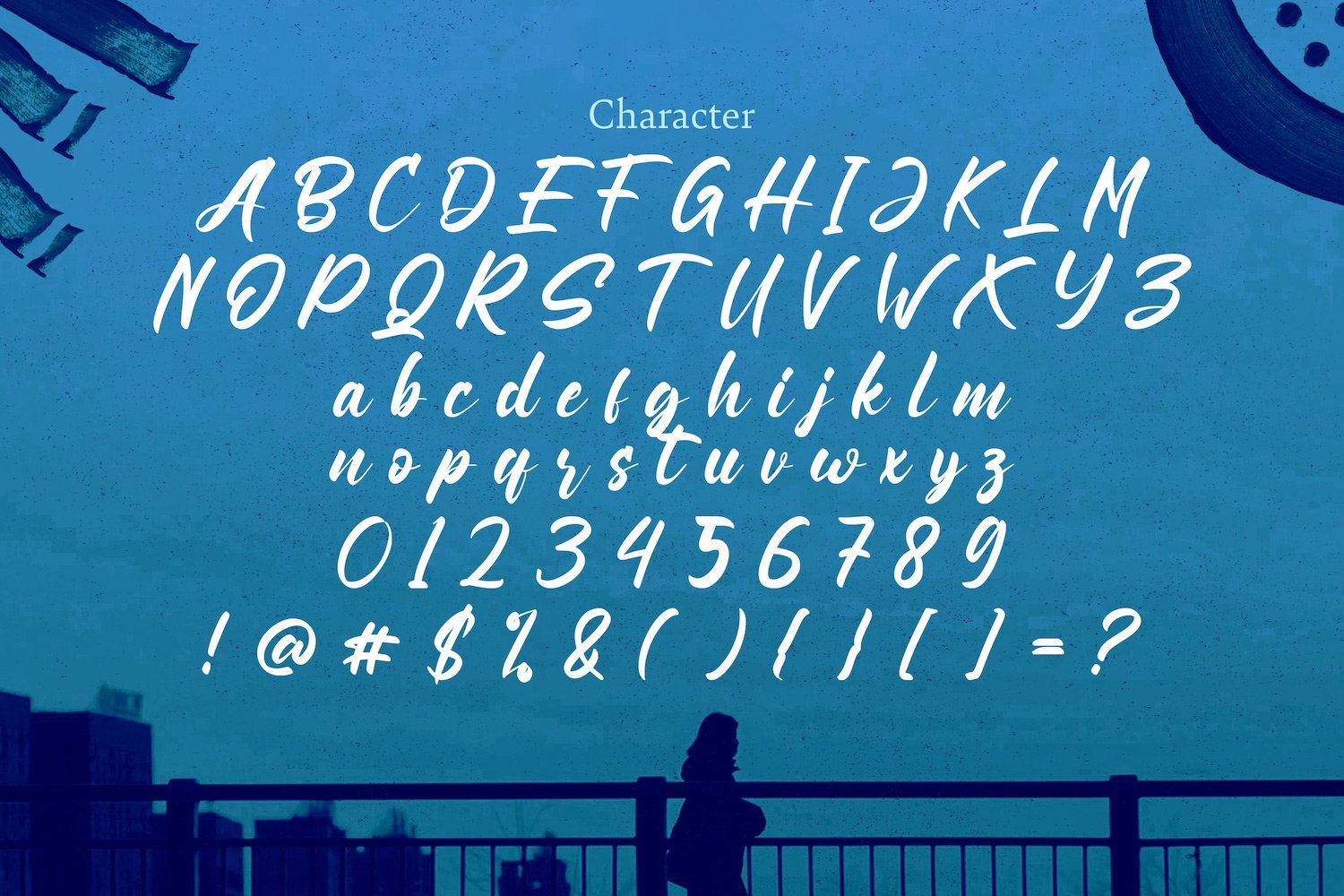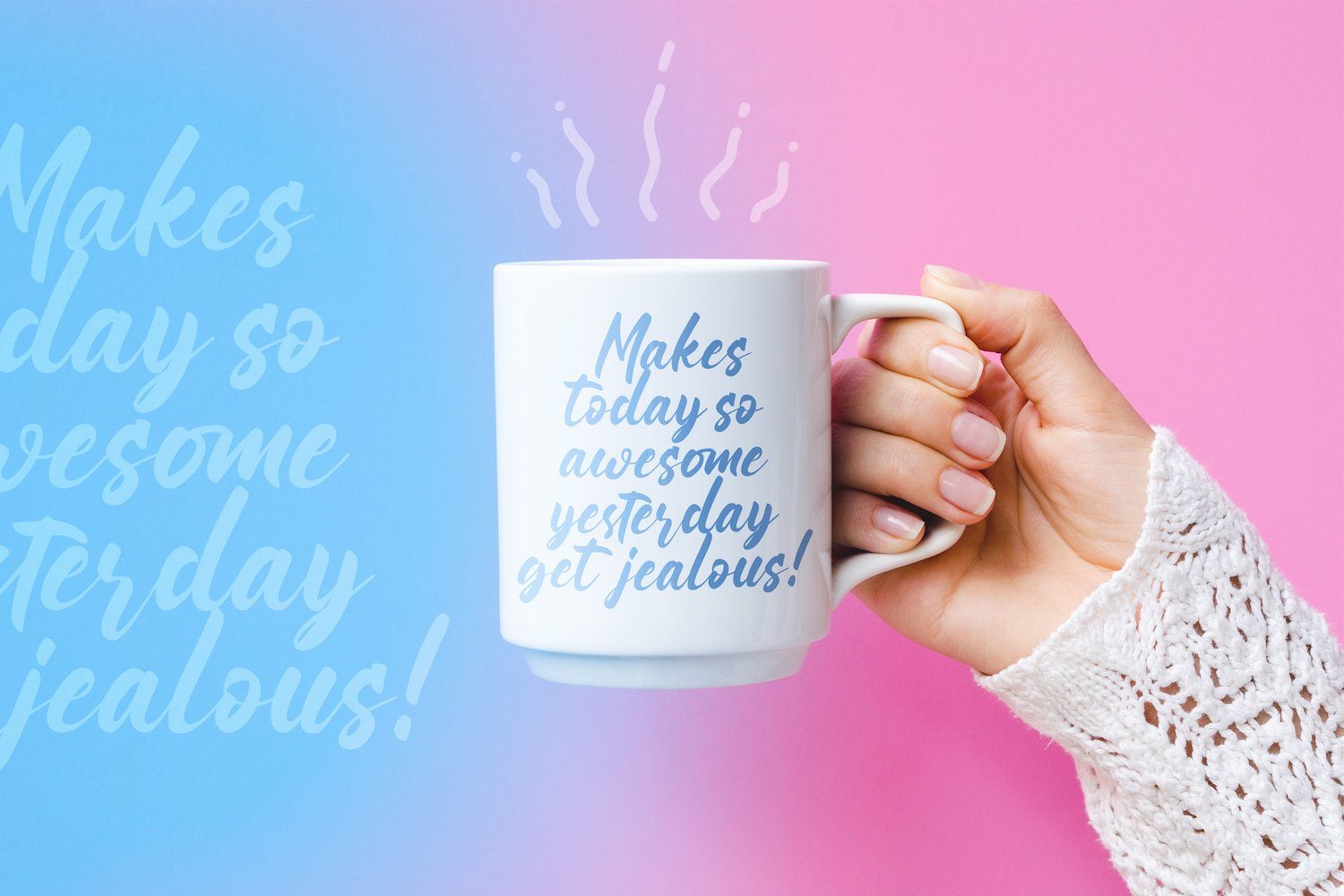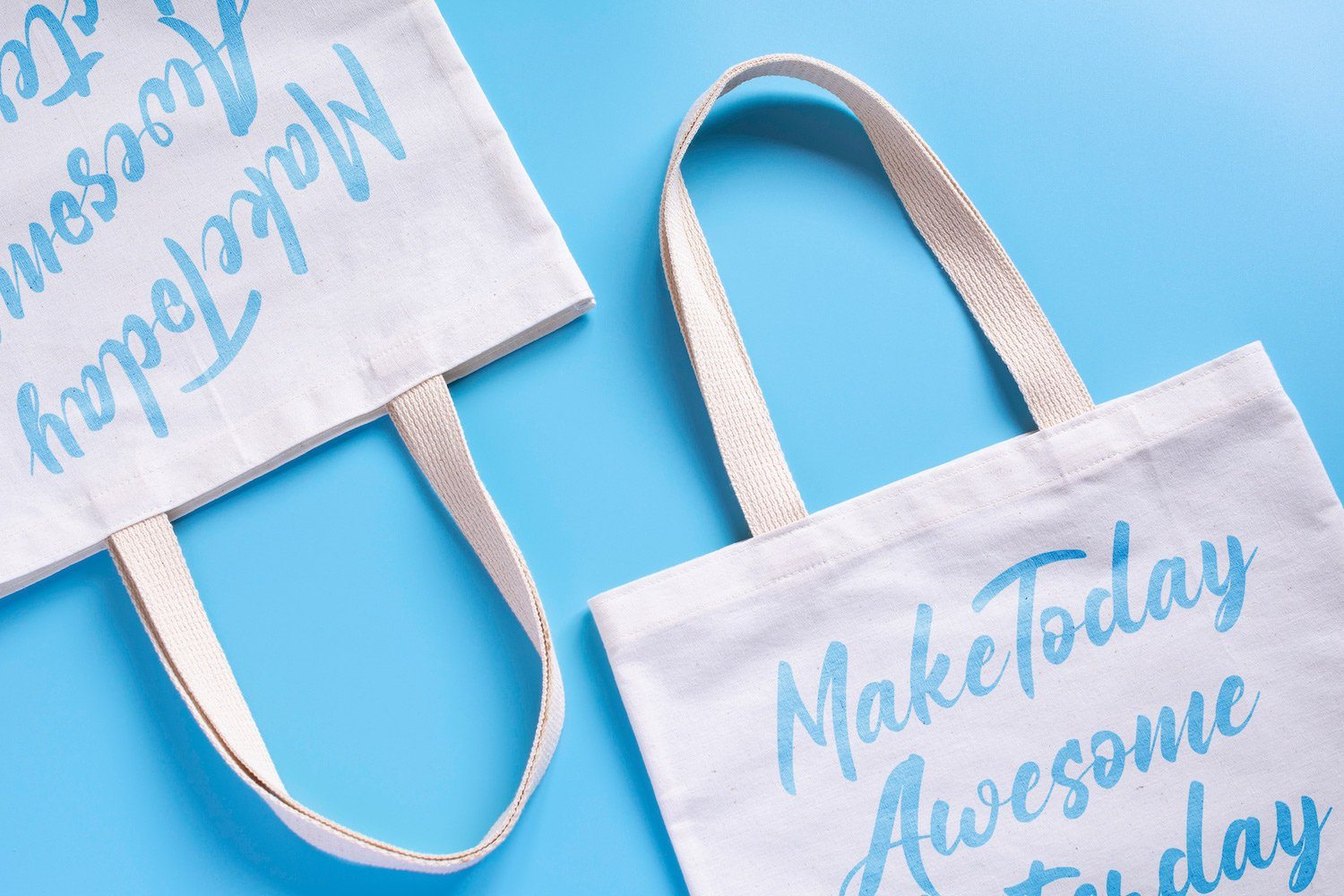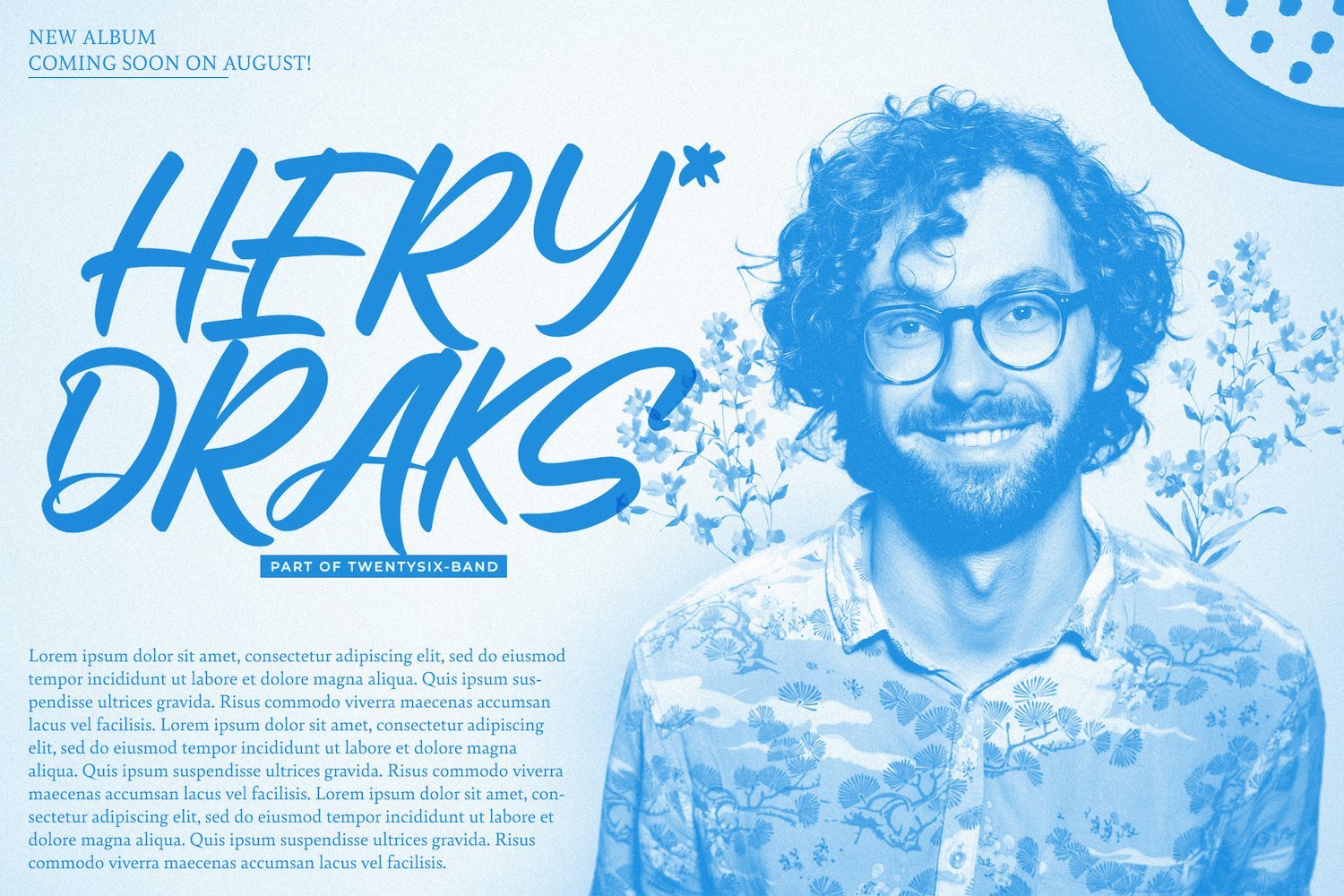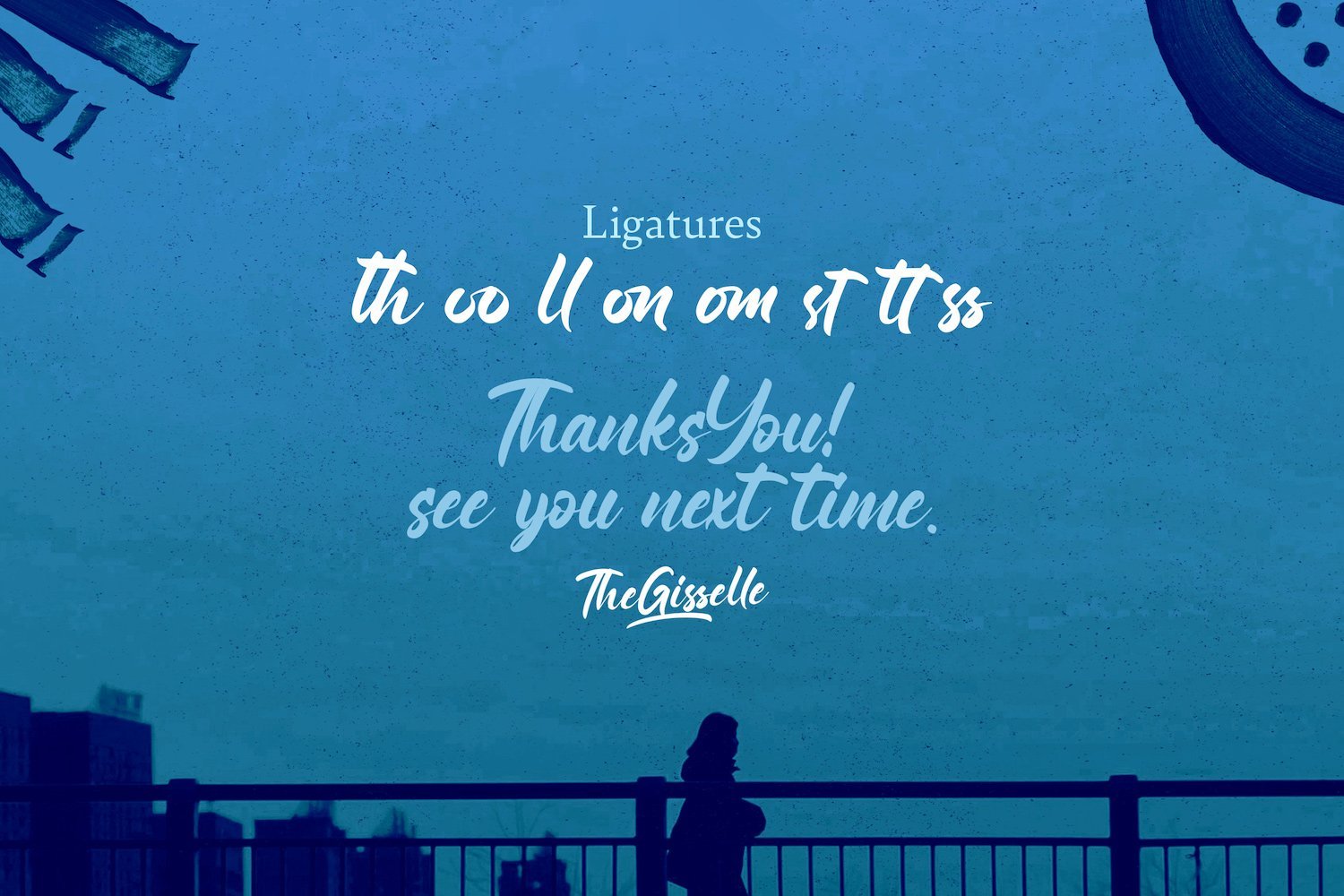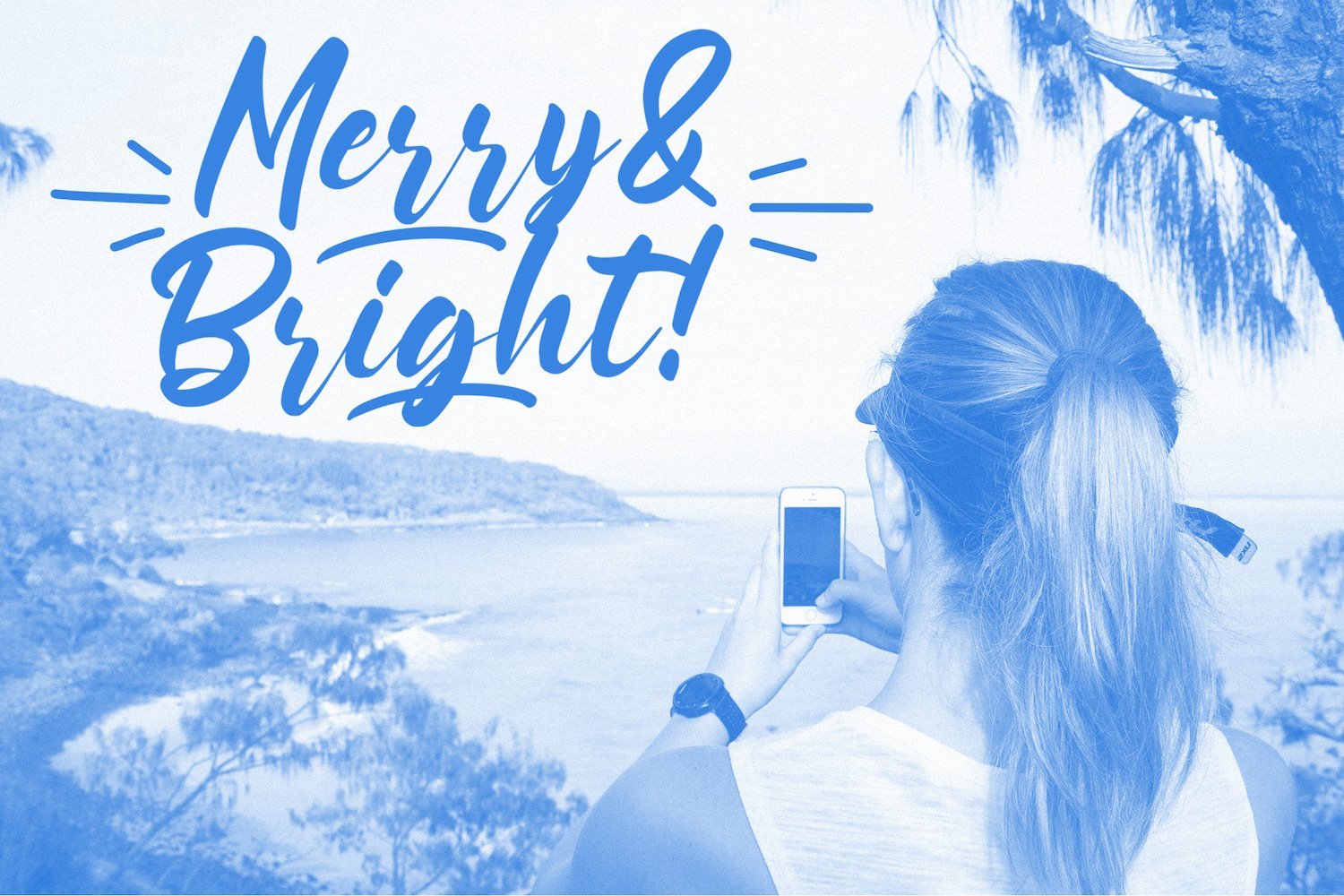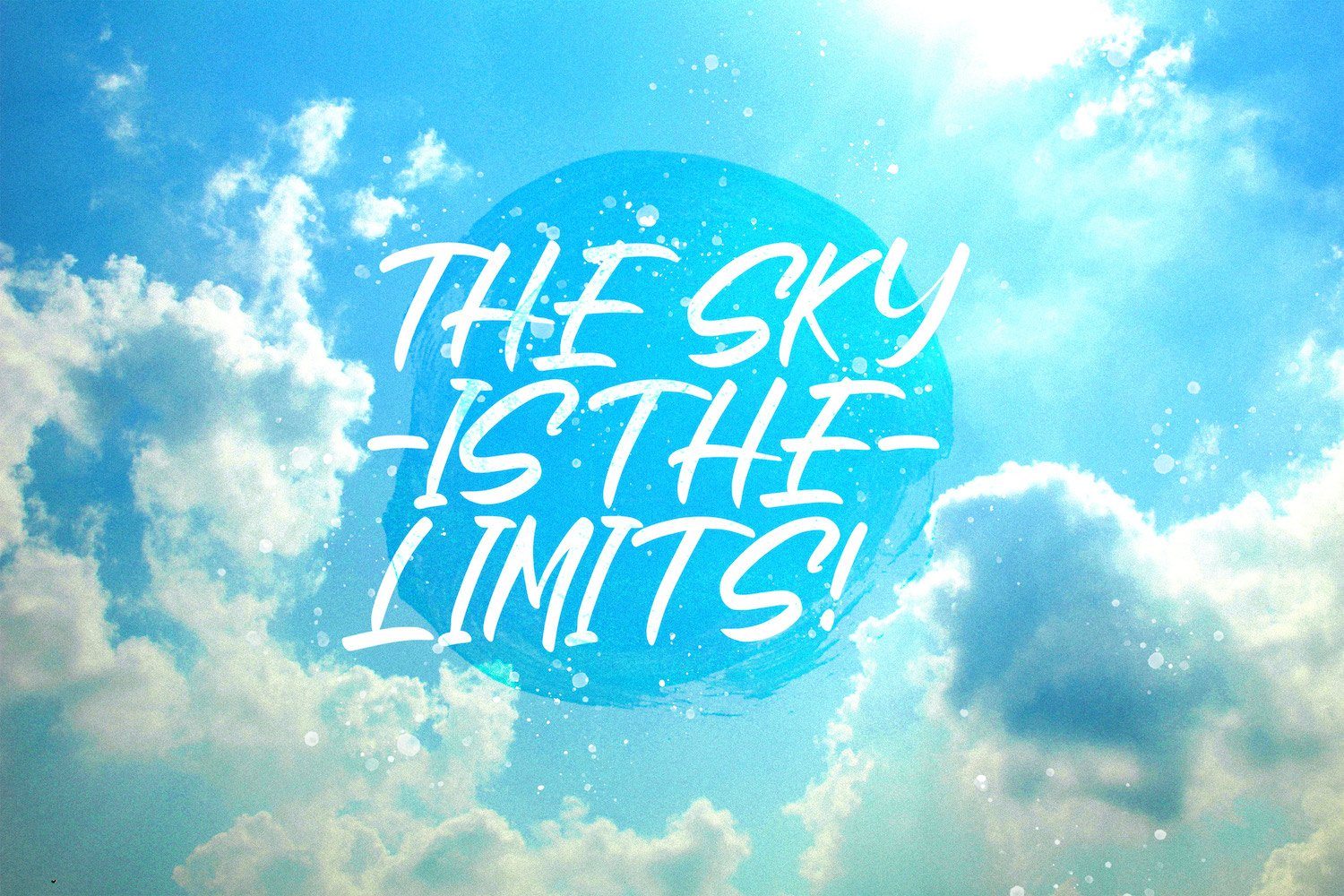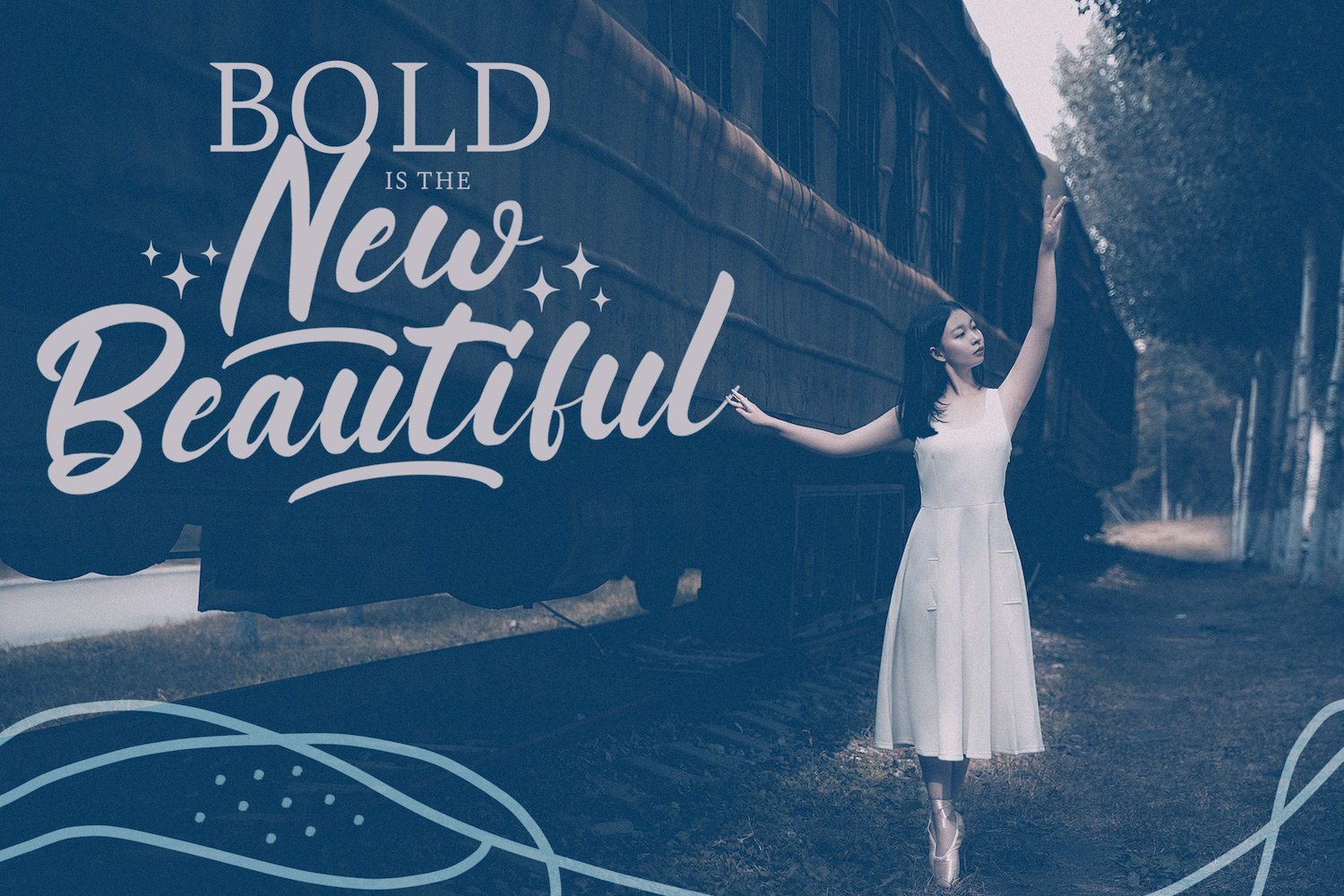
Gisselle – Bold Script Font
About Gisselle – Bold Script Font
Introducing Gisselle – Bold Script Font Gisselle is a flowing handwritten font, described by an elegant touch, perfect for your favorite projects. Fall in love with its incredibly distinct and timeless style and use it to create spectacular designs! FEATURES – TTF/OTF/WOFF/WOFF2 – Ligatures – PUA Encode – Uppercase and Lowercase letters – Numbering and Punctuations – Multilingual Support – Works on PC or Mac – Simple Installation – Support Adobe Illustrator, Adobe Photoshop, Adobe InDesign, also works on Microsoft Word Hope you Like it. Thanks.